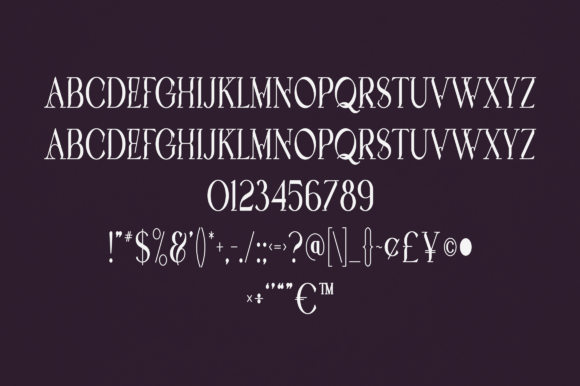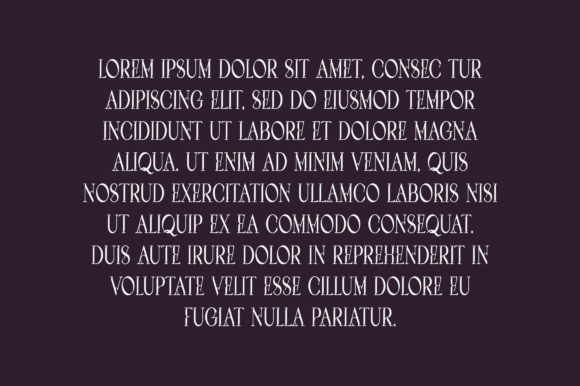
Introducing Fig Font: Elevate Your Typography with Elegance and Versatility
In the world of typography, a font can make or break the visual appeal of a design. For designers and crafters looking to add a touch of sophistication and uniqueness to their projects, Fig Font is an excellent choice. This elegant and versatile display font is designed to make your typography truly stand out, perfect for a wide range of applications from logos and branding to headlines and plain text.
What Makes Fig Font Special?
Fig Font is not just another font; it’s a design statement. Its elegant and versatile nature makes it suitable for various design projects, including:
- Branding Projects: Create a lasting impression with a unique and stylish font that reflects your brand’s personality.
- Home-Ware Designs: Add a touch of elegance to your home-ware designs, making them stand out from the crowd.
- Product Packaging: Elevate your product packaging with a sophisticated font that enhances the overall visual appeal.
- Magazine Headers: Create eye-catching magazine headers that grab attention and set the tone for your content.
- Text Overlay: Use Fig Font as a stylish text overlay to any background image, adding depth and visual interest.
Key Features of Fig Font
Fig Font comes with a range of features that make it an ideal choice for designers and crafters:
- Elegant and Versatile: Fig Font boasts an elegant and versatile design, suitable for a wide range of applications.
- Display Font: Designed as a display font, Fig Font is perfect for headlines, titles, and short text passages.
- Unique Typography: With Fig Font, you can create unique and eye-catching typography that sets your design apart.
Tips for Using Fig Font Effectively
To get the most out of Fig Font, consider the following tips:
- Pair with Neutral Backgrounds: Fig Font works best with neutral backgrounds, allowing the font to take center stage.
- Experiment with Colors: Try pairing Fig Font with different colors to create a unique and eye-catching effect.
- Use for Headlines and Titles: Fig Font is perfect for headlines and titles, making it an excellent choice for magazine headers and article titles.
- Add Texture and Patterns: Consider adding texture and patterns to your design to create a visually interesting effect.
Who Can Benefit from Fig Font?
Fig Font is an excellent choice for a wide range of designers and crafters, including:
- Graphic Designers: Add a touch of elegance and sophistication to your graphic designs.
- Branding Experts: Create unique and memorable branding elements with Fig Font.
- Digital Artists: Use Fig Font to add a stylish text overlay to your digital art.
- Crafters: Add a touch of elegance to your craft projects, such as home-ware designs and product packaging.
Fig Font is an elegant and versatile display font that can elevate your typography to new heights. With its unique design and wide range of applications, it’s perfect for designers and crafters looking to add a touch of sophistication to their projects. Whether you’re working on branding projects, home-ware designs, product packaging, or simply looking for a stylish text overlay, Fig Font is an excellent choice.